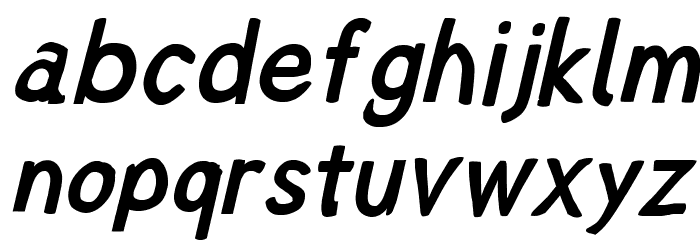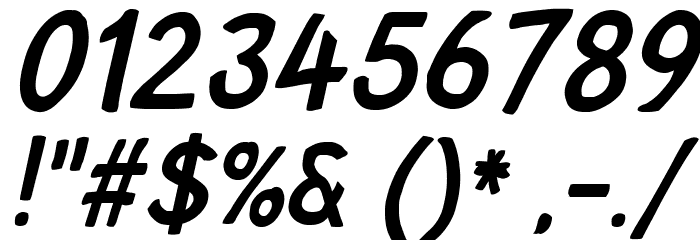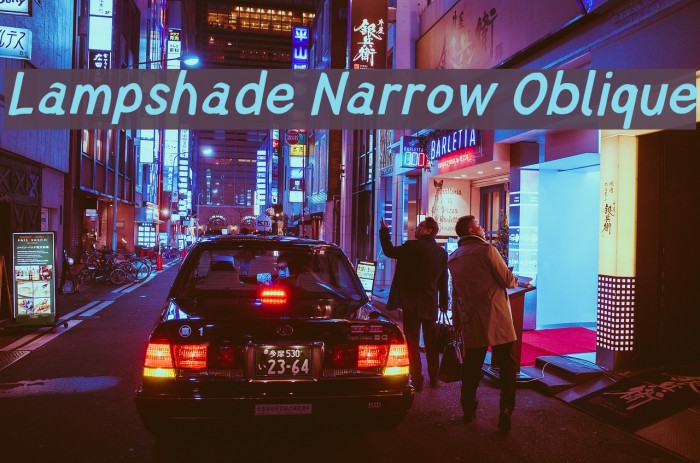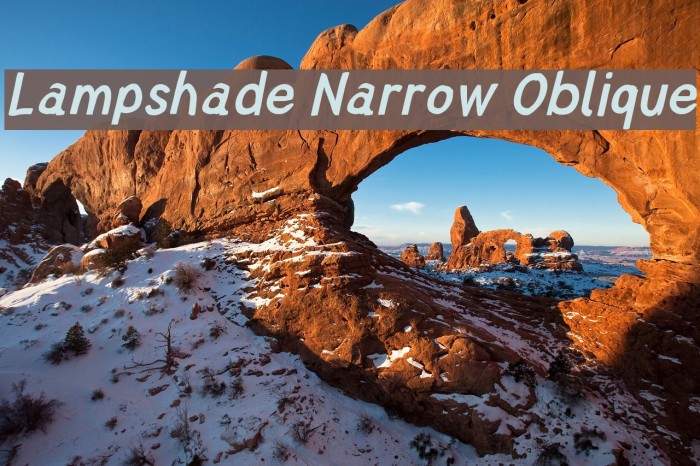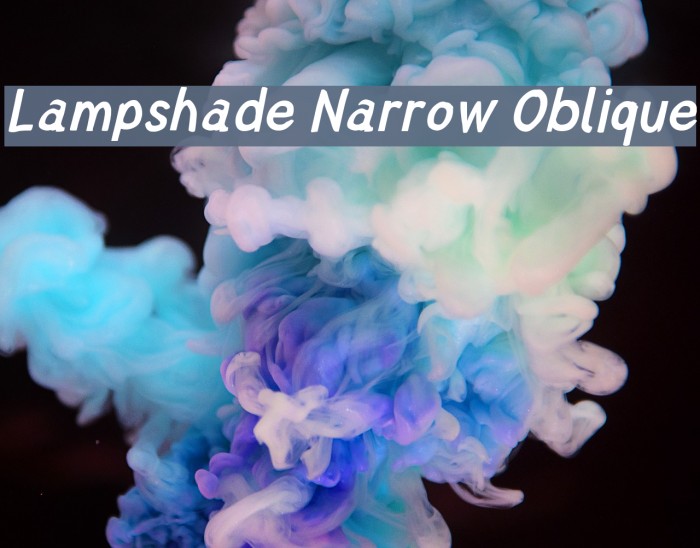
Lampshade Narrow Oblique Font
This font features a dynamic and energetic style with a narrow and oblique design. The characters are slightly slanted, giving a sense of movement and fluidity. The strokes are consistent and smooth, with a moderate thickness that ensures readability while maintaining a stylish appearance. The font's overall look is modern and slightly informal, making it suitable for creative and contemporary projects. The spacing between characters is balanced, allowing for clear legibility even in smaller sizes. This font includes a full set of uppercase and lowercase letters, numbers, and a variety of special characters, making it versatile for various design needs.
A narrow, oblique font with a modern and dynamic style.
- Proposed Projects: Ideal for branding, advertising, posters, and digital media where a modern and energetic look is desired.